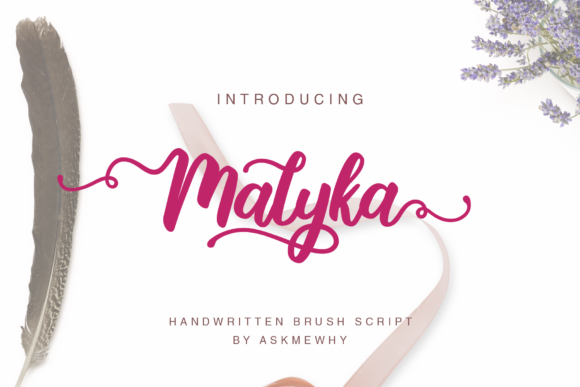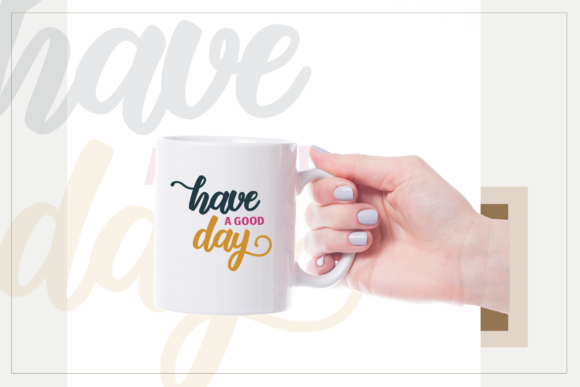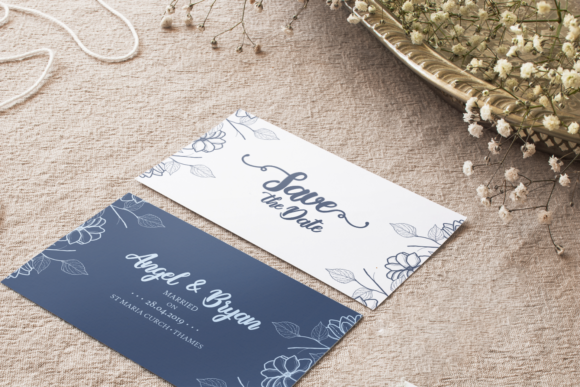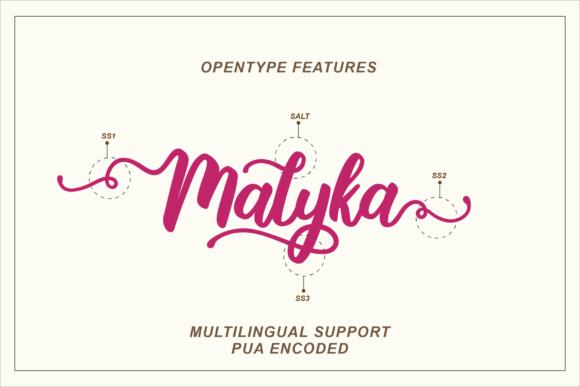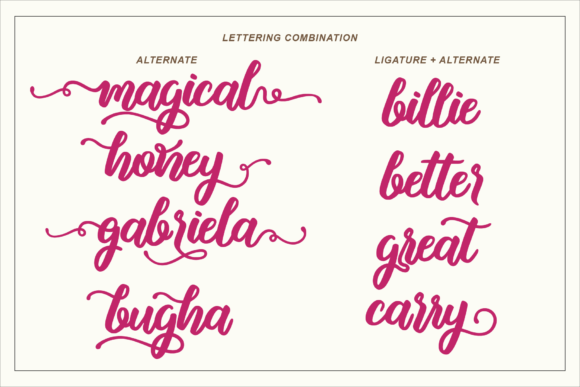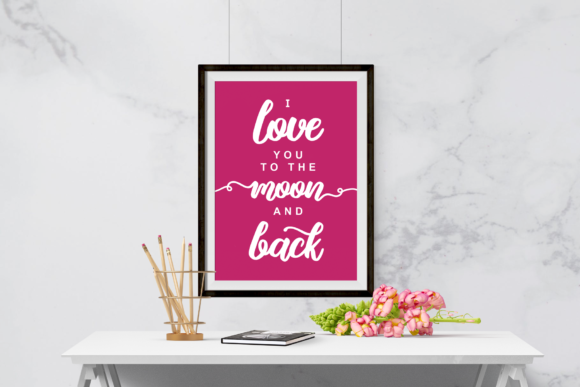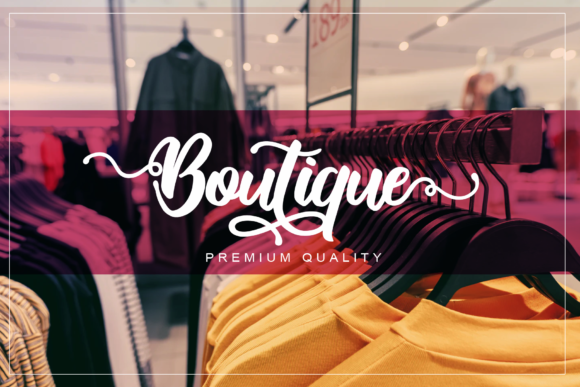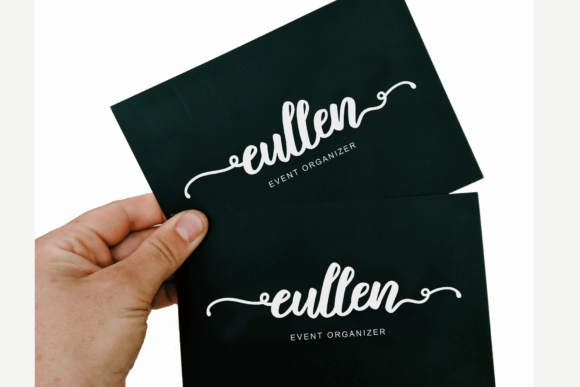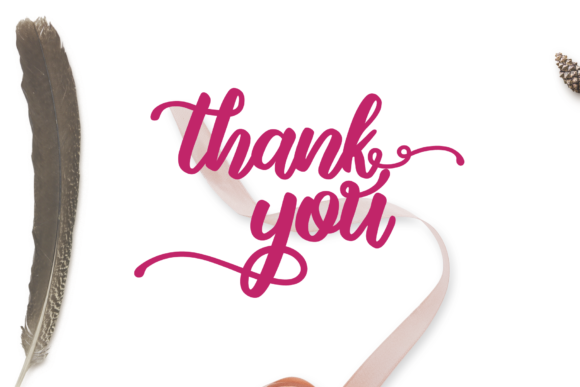
HomeScript FontsMalyka Font Script Fonts Malyka Font FacebookXPinterestWhatsApp Malyka Font Poster 2 Malyka Font Poster 3 Malyka Font Poster 4 Malyka Font Poster 5 Malyka Font Poster 6 Malyka Font Poster 7 Malyka Font Poster 8 Malyka Font Poster 9 About Malyka Font Malyka is a sweet and simple script with beautiful swashes. It will turn any design idea into a true standout! DOWNLOAD ON CREATIVE FABRICAThis font is sold and delivered by Creative Fabrica. Font Canyon may earn a commission if you buy through this link. People also explored Kinglane Halymon Font Battara Script Font Larizo Script Font Key West Script Font Beatrice Font Yapa Bahary Font Hockey Font 322 0 TagsMalyka Font Previous articleBristle FontNext articleYellow Fresh Font LEAVE A REPLY Cancel reply Comment: Please enter your comment! Name:* Please enter your name here Email:* You have entered an incorrect email address! Please enter your email address here Website: Save my name, email, and website in this browser for the next time I comment. Personal Use Free Black Personal Use Free Read more about this font Rhetorical Personal Use Free Read more about this font Romantic February Personal Use Free Read more about this font Colombia Personal Use Free Read more about this font BLOG Exploring Font Trends Shaping Communication in the Digital Era Fonts, like all design elements, are subject to trends. They play a crucial role in communicating a brand's personality,... Elegant Wedding Invitation Fonts – Handwritten & Script Fonts Best Fonts for YouTube Videos: Make Your Thumbnails Stand Out Using Fonts in Digital Marketing: Tips to Strengthen Your Brand Identity